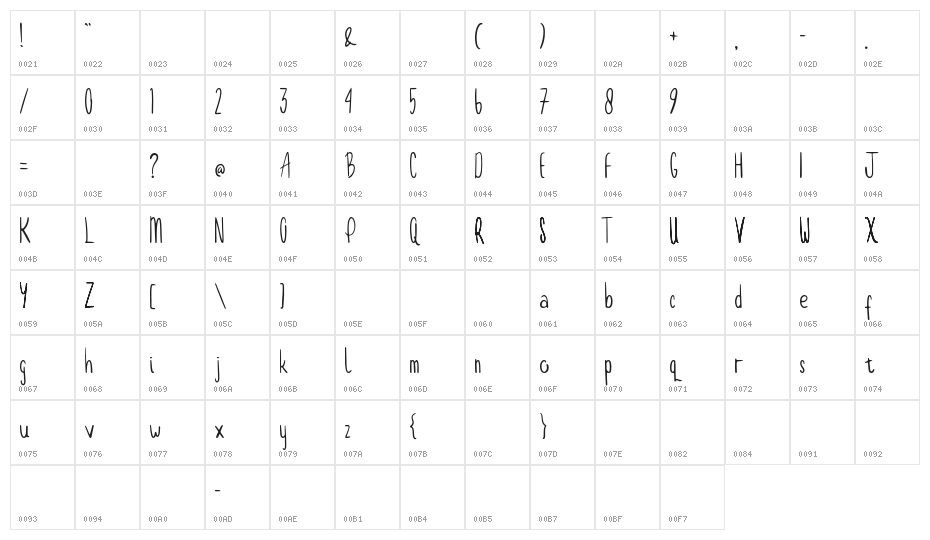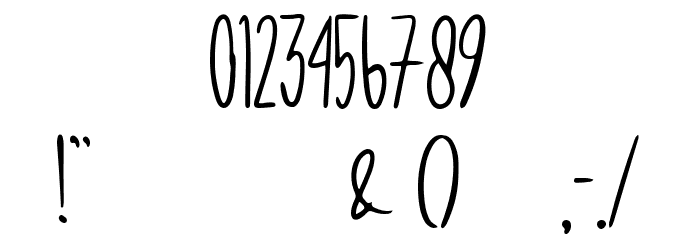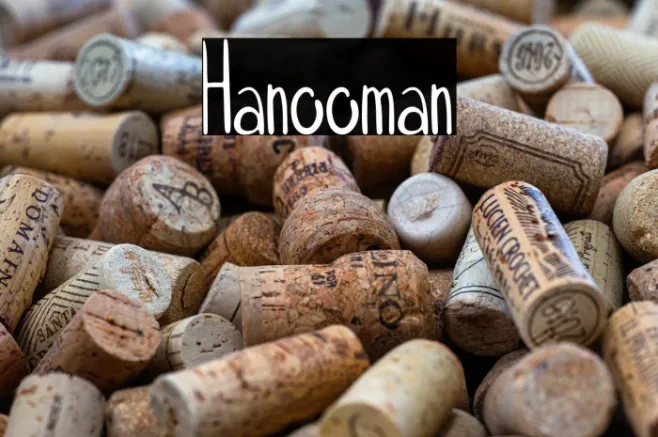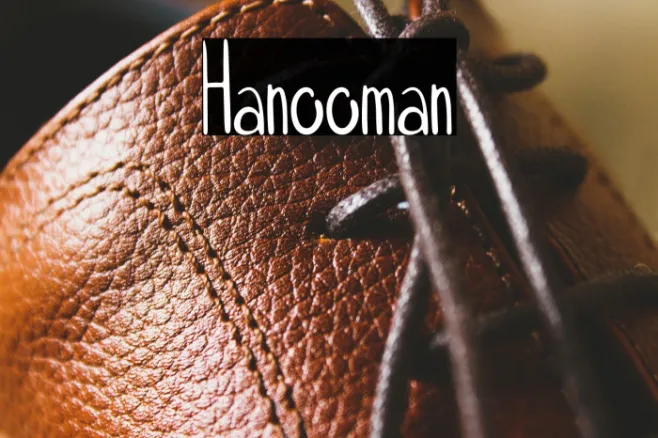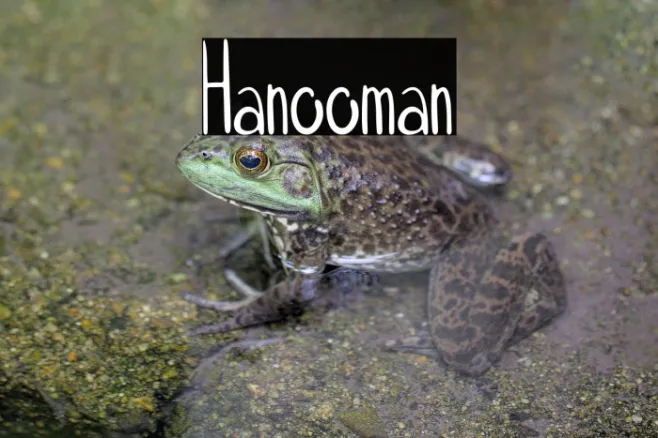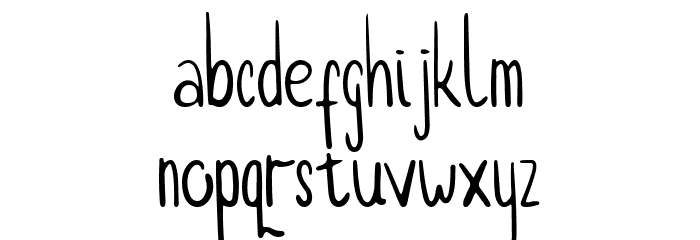
Hanooman Font
Hanooman Description
This font features a playful and informal handwritten style, characterized by its tall and narrow letterforms. The strokes are smooth and slightly irregular, giving it a casual and friendly appearance. The uppercase letters are distinctively tall, while the lowercase letters maintain a consistent height, creating a harmonious balance. The numerals are clear and legible, matching the overall style of the alphabet. Special characters are included, maintaining the same playful aesthetic. This font is well-suited for projects that require a personal touch, such as invitations, greeting cards, or creative branding.
| Proposed Projects | Ideal for invitations, greeting cards, creative branding, and informal communications. |